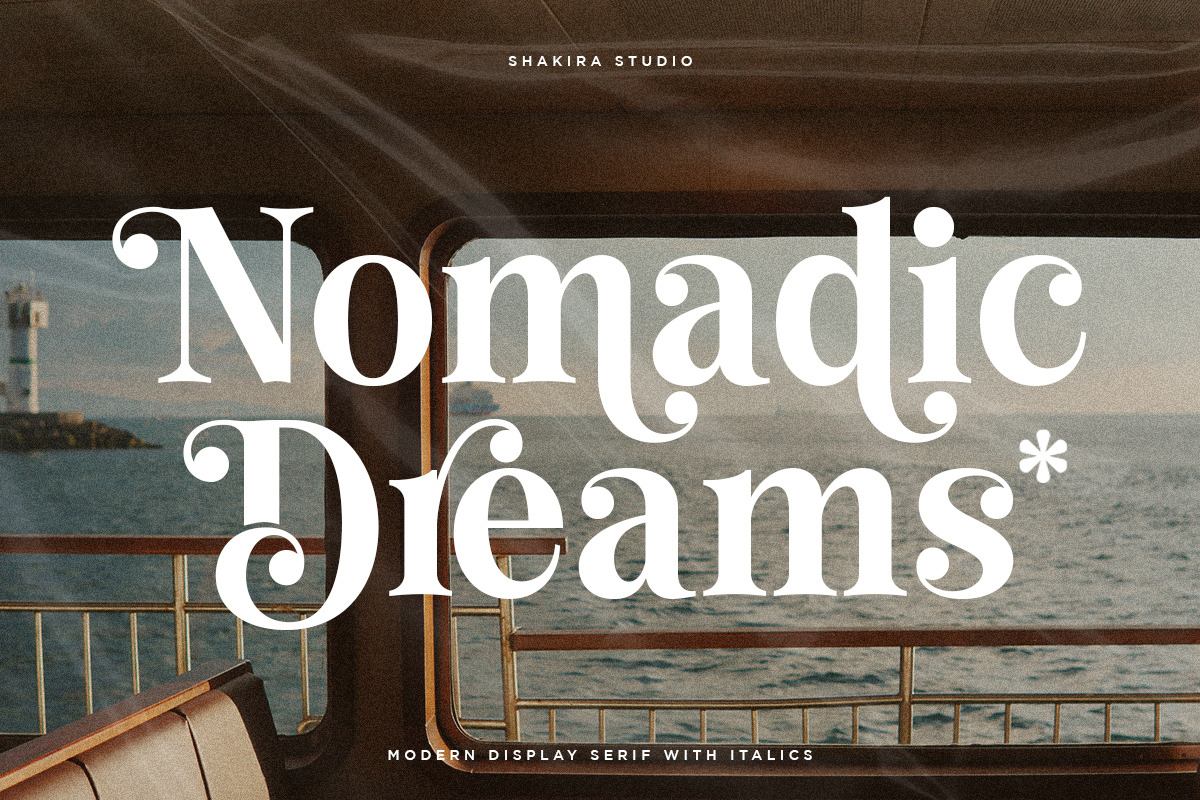
Nomadic Dreams - Modern Serif Font Free Download
Sleek, sophisticated, and contemporary, Nomadic Dreams - Modern Serif Font Free Download is a beautifully crafted serif typeface that blends modern design with classic elegance. Perfect for branding, editorial layouts, logos, invitations, and high-end packaging, this font adds a refined, timeless touch to your typography.
With its clean lines, sharp serifs, and balanced proportions, Nomadic Dreams offers a contemporary look that maintains readability and sophistication. Whether you're designing a luxury brand, working on a modern editorial layout, or creating stylish promotional materials, this font brings a touch of grace and versatility to your projects.